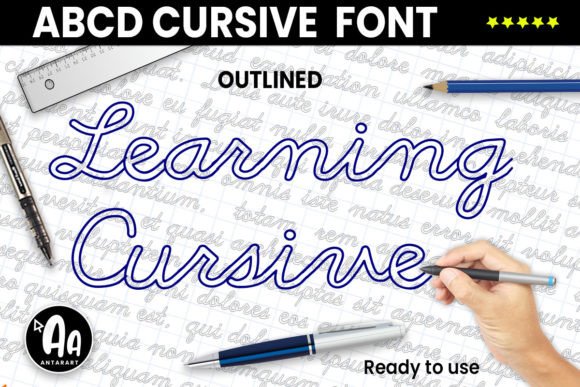
The Power of Abcd Cursive Outlined Font: A Creative Game-Changer
I’ll never forget the moment I stumbled upon the Abcd Cursive Outlined Font while working on a project for a client who needed a custom worksheet for their kids. As a designer, I was on the hunt for a font that would not only make the worksheet visually appealing but also help the kids learn cursive handwriting in an engaging way. That’s when I discovered this gem of a font, and it completely transformed my design process.
• ✅ Versatility: This handwritten font is incredibly versatile and can be used to create thousands of worksheets using any software.
• ✅ Learning Resource: It’s a great learning resource for those who want to learn or teach cursive handwriting enjoyably and interactively.
• ✅ Aesthetics: The outlined cursive style is not only visually appealing but also helps to create a clear and readable text.
While working with the Abcd Cursive Outlined Font, I did notice a few minor quirks. For instance, glyph compatibility can be an issue if you’re using certain software that doesn’t support OpenType features. Additionally, stylistic alternates might require some extra tweaking to get the desired look.
However, these limitations are relatively minor and can be easily overcome with a little creativity and experimentation. 🤔
The Designer Inspiration Behind Abcd Cursive Outlined Font
The Abcd Cursive Outlined Font was designed with the intention of creating a fun and engaging way to learn cursive handwriting. The designer, likely an educator or a creative professional, aimed to craft a font that would not only be aesthetically pleasing but also functional and easy to read.